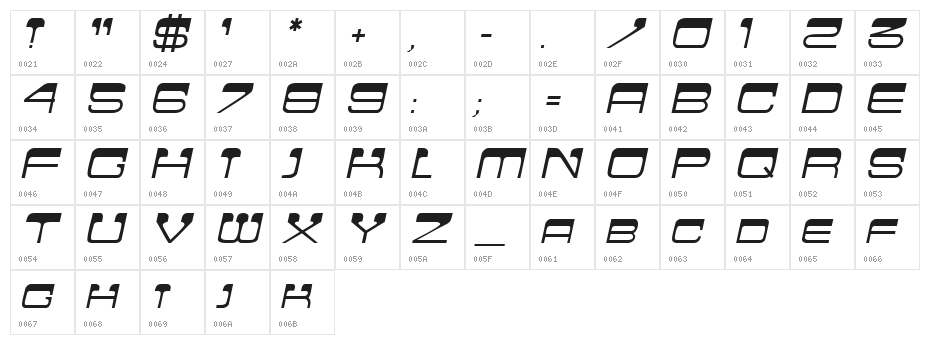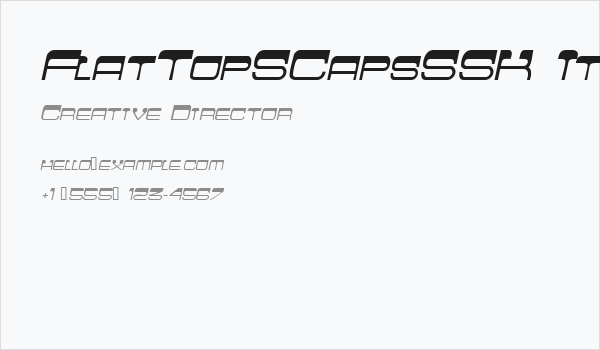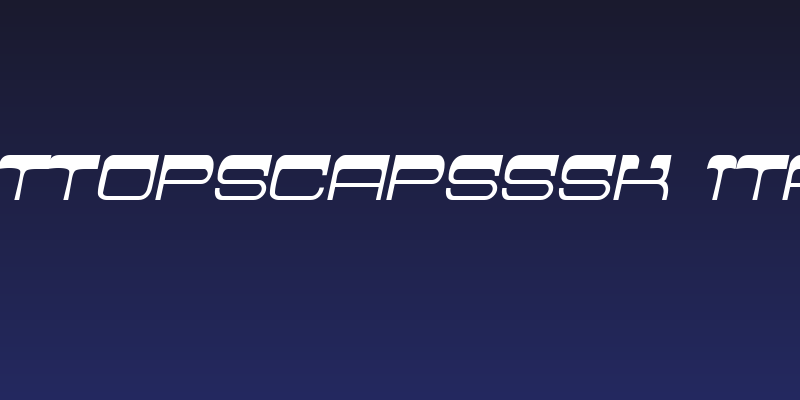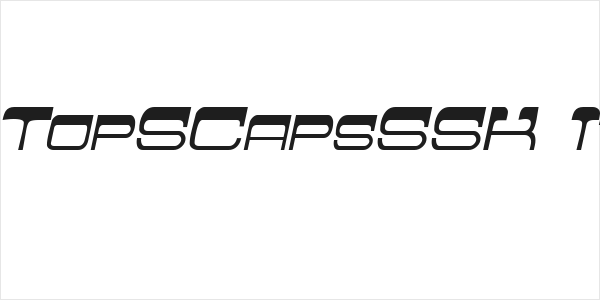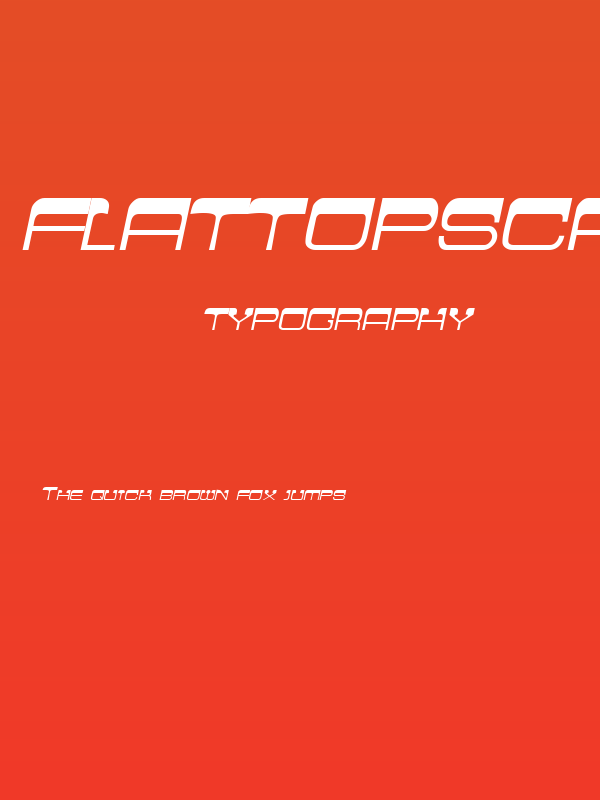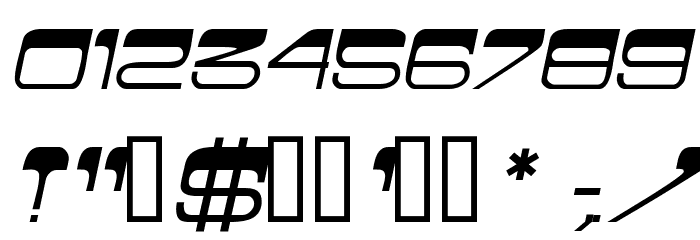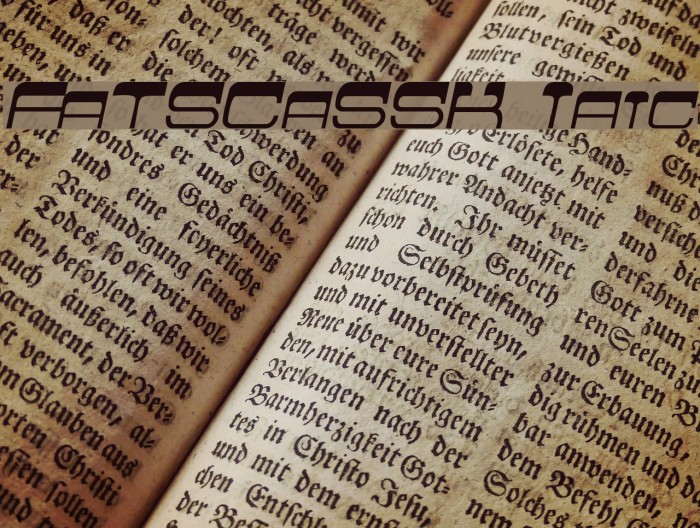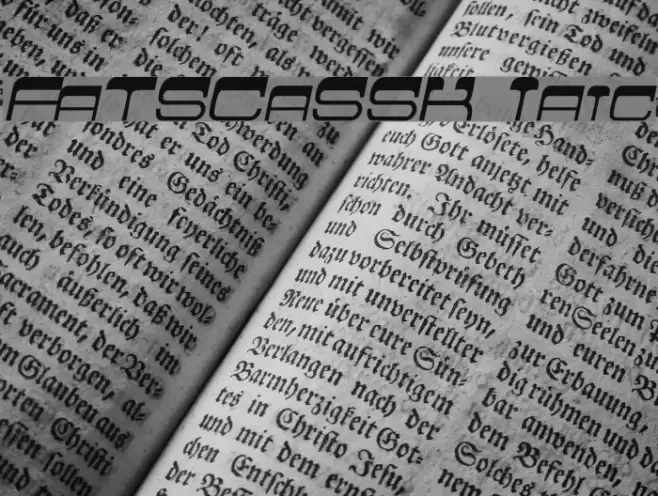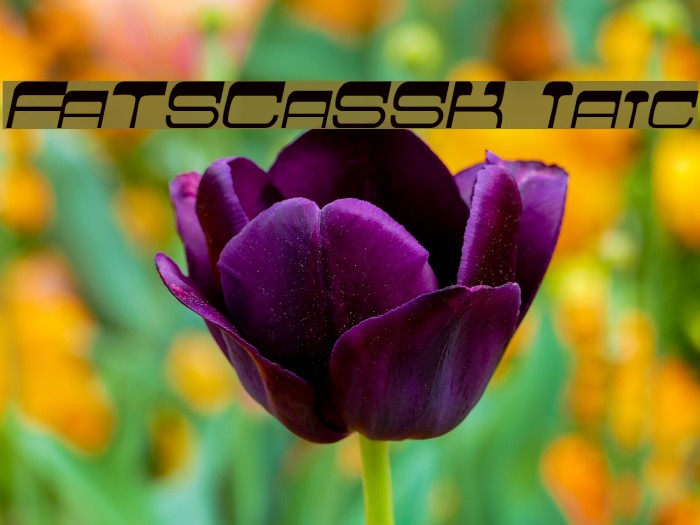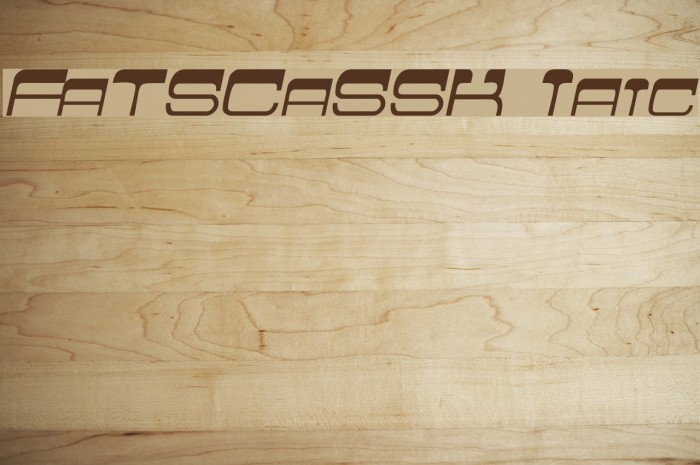
FlatTopSCapsSSK Italic Font
FlatTopSCapsSSK Italic Description
This font features a sleek, modern design with a distinct italic slant, giving it a dynamic and forward-moving appearance. The characters are constructed with a combination of straight lines and subtle curves, creating a futuristic and technical aesthetic. The uppercase and lowercase letters maintain a consistent style, with a uniform height that enhances readability. The numerals and special characters are designed to match the overall style, ensuring a cohesive look across all text elements. This font's unique design makes it suitable for projects that require a contemporary and innovative feel.
| Proposed Projects | Ideal for technology branding, modern advertising, and innovative product packaging. |